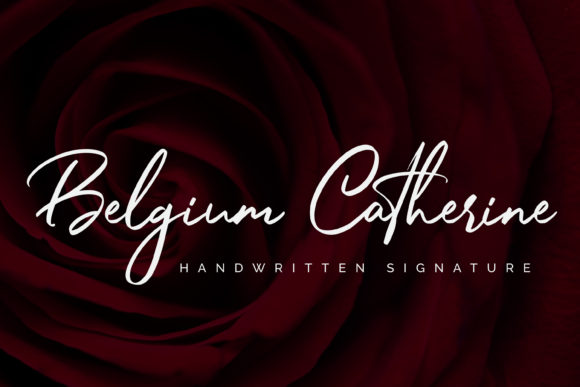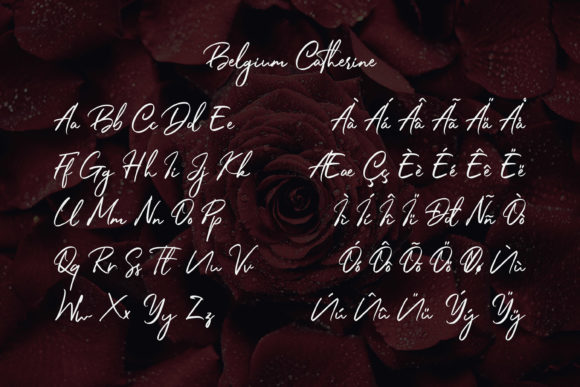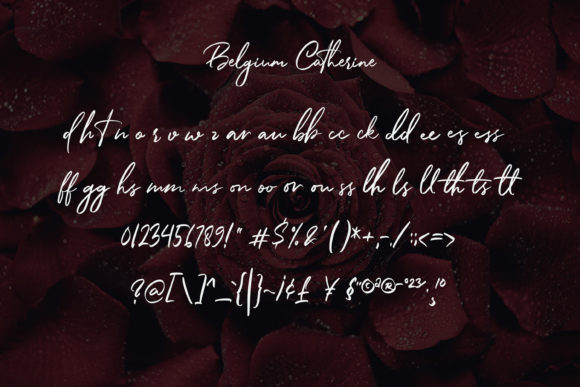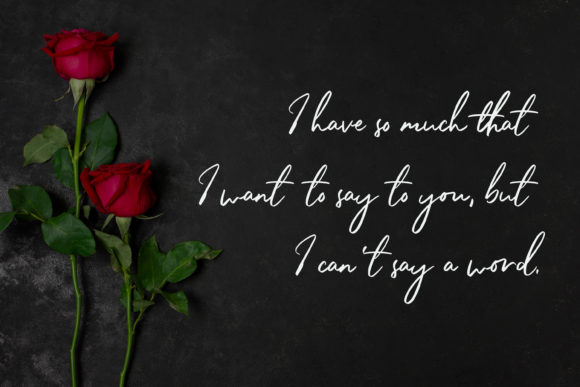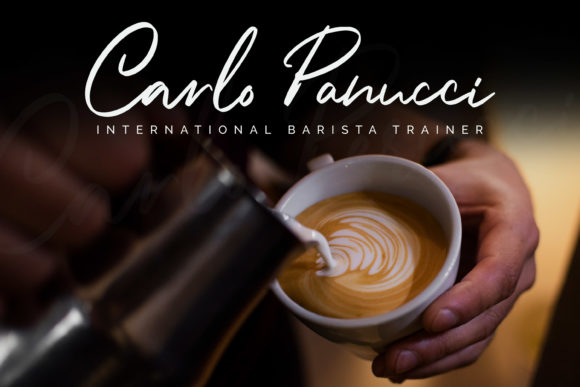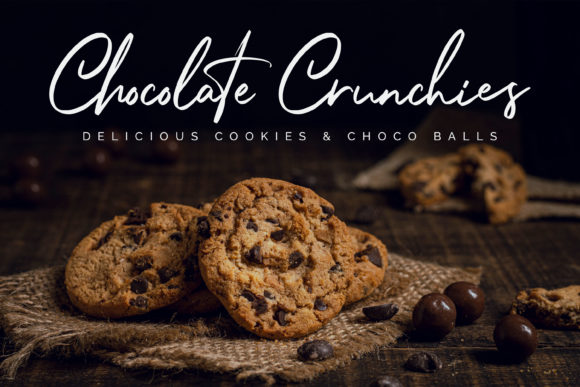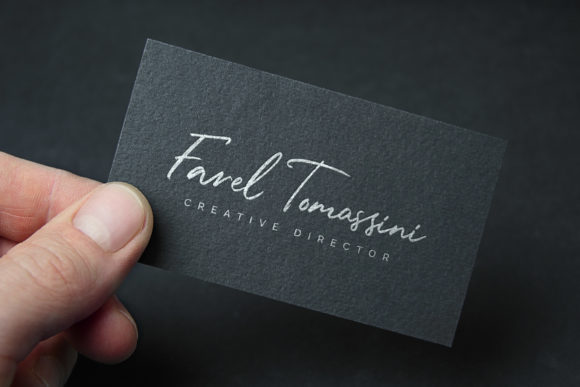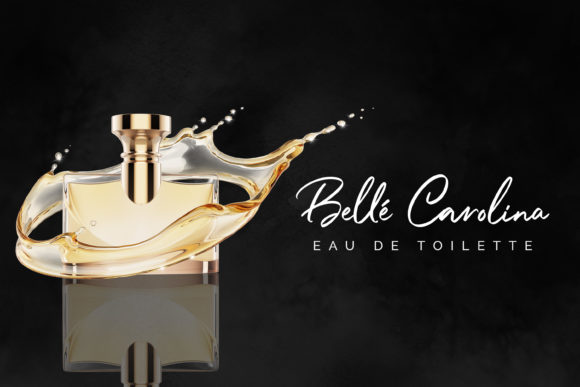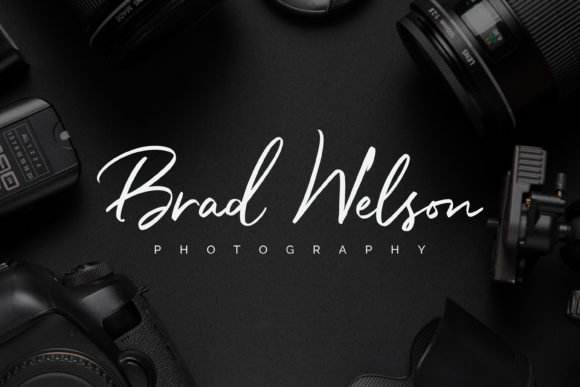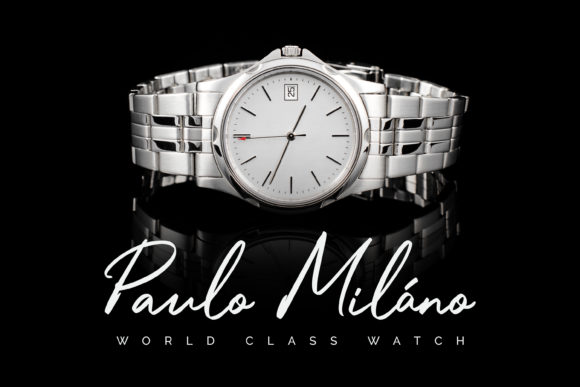
Belgium Catherine Font
About Belgium Catherine Font
Belgium Catherine is a handwritten script font with a classy style. This font is great for any creative project that needs a unique appearance!